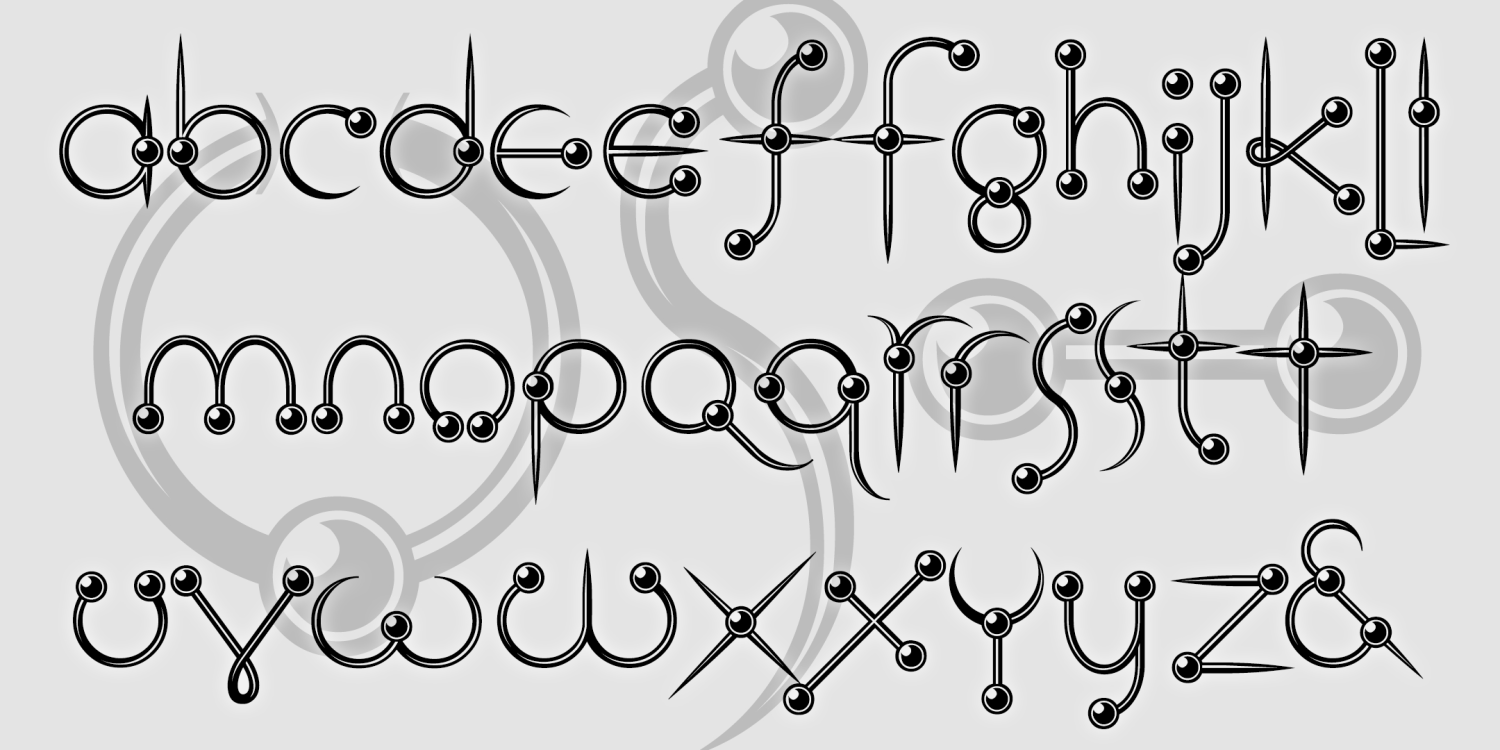
Ringpin
RINGPIN was inspired by the style of body piercing. Not my own style, but interesting to observe. In designing this font, I was rather limited to geometric components, and drew each with a crisp highlight. Most letters take the lowercase form, sometimes with alternates. The letters did not want to align neatly, so they assume a variegated arrangement. Includes alternates of many letters.